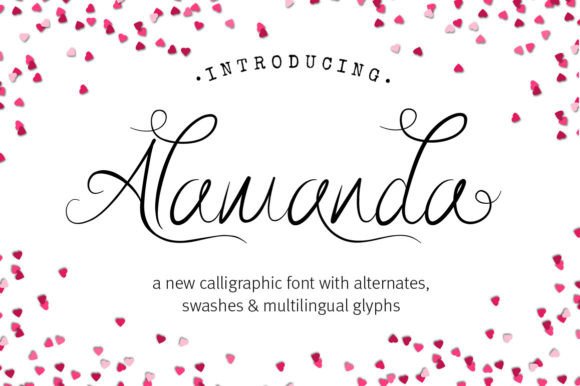
Step into a world of timeless elegance with Alamanda Font, the epitome of beauty and sophistication. This meticulously crafted script font, brought to life by the visionary artist Joanne Hewitt, is a masterpiece that captures the essence of romance and charm.
With its delicate curves and flowing lines, Alamanda exudes an air of grace and refinement, making it the perfect choice for wedding invitations, greeting cards, and other special occasions. Its versatile nature extends to logos, branding, and social media graphics, adding a touch of sophistication to your digital presence.
Alamanda's versatility knows no bounds. It lends its charm to both modern and vintage designs, effortlessly blending with various aesthetics. Whether you're a seasoned designer or just starting out, Alamanda's user-friendly nature makes it a joy to work with.
But what truly sets Alamanda apart is its ability to evoke emotions. Its elegant strokes have the power to transform ordinary words into heartfelt expressions, leaving a lasting impression on your audience. Imagine your wedding invitations adorned with Alamanda's graceful script, conveying the love and joy of your special day.